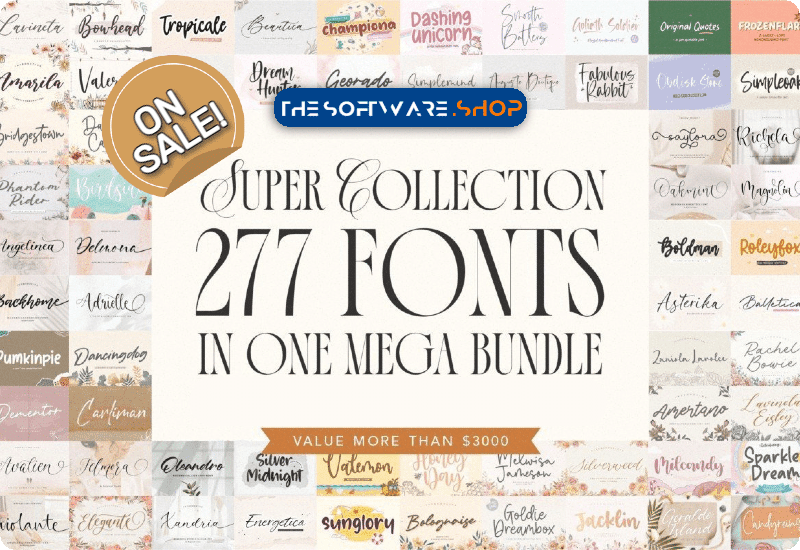
If you’re a designer, artist, or craft enthusiast, then you probably know how important it is to have a vast collection of fonts. Fonts can make or break a design, and having a variety of fonts at your disposal can help you create beautiful artwork with ease. If you’re looking for a font collection that will meet all your crafting needs, then the Super Font Collection is the perfect solution for you.
What is the Super Font Collection?
The Super Font Collection is a massive bundle of 277 script fonts by Balpirick that are perfect for crafting enthusiasts. These fonts have been carefully curated to provide a wide range of styles that are suitable for various projects, such as greeting cards, invitations, labels, book covers, tumbler wraps, and stationery. This collection includes premium fonts that are PUA encoded, making it easy to access all of the special characters.
What fonts are included in the Super Font Collection?
The Super Font Collection features an incredible selection of premium fonts that are sure to meet all of your crafting needs.
The Super Font Collection is the ultimate bundle for crafting enthusiasts who are looking to take their creations to the next level. With 277 premium script fonts, this collection offers a wide range of styles that are suitable for various projects. What’s more, you can download the collection for free and save $2496! Whether you’re a professional designer or a hobbyist, the Super Font Collection is an essential addition to your font library.